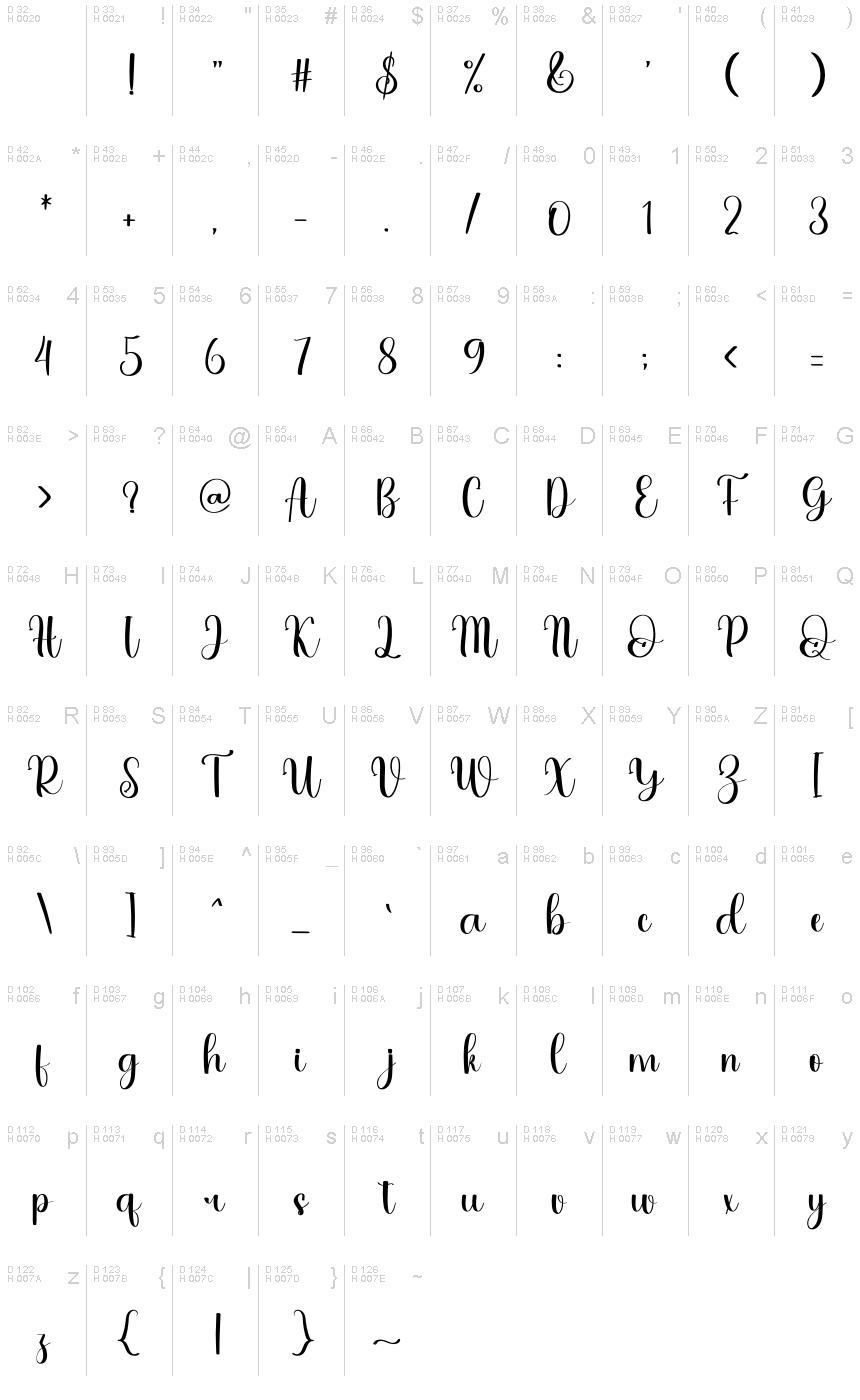
Wrinkled
Wrinkled font by PiPi Creative is an elegant and flowing calligraphy font with a decorative flair and stylish loops. Its vintage-inspired design evokes warmth and nostalgia, reminiscent of mid-20th-century influences. Each character adds sophistication and grace to your designs, making this free calligraphy font the refined addition you’ve been looking for.
Perfect for wedding invitations, signage, boutique branding, or websites/blogs that need a warm personal touch. Use this lovely font on tea packaging, cosmetic brand labels, greeting cards as well as in stylish personal diaries. Making a delicate children’s book or Instagram posts is also possible among many other design projects that require extra refinement.